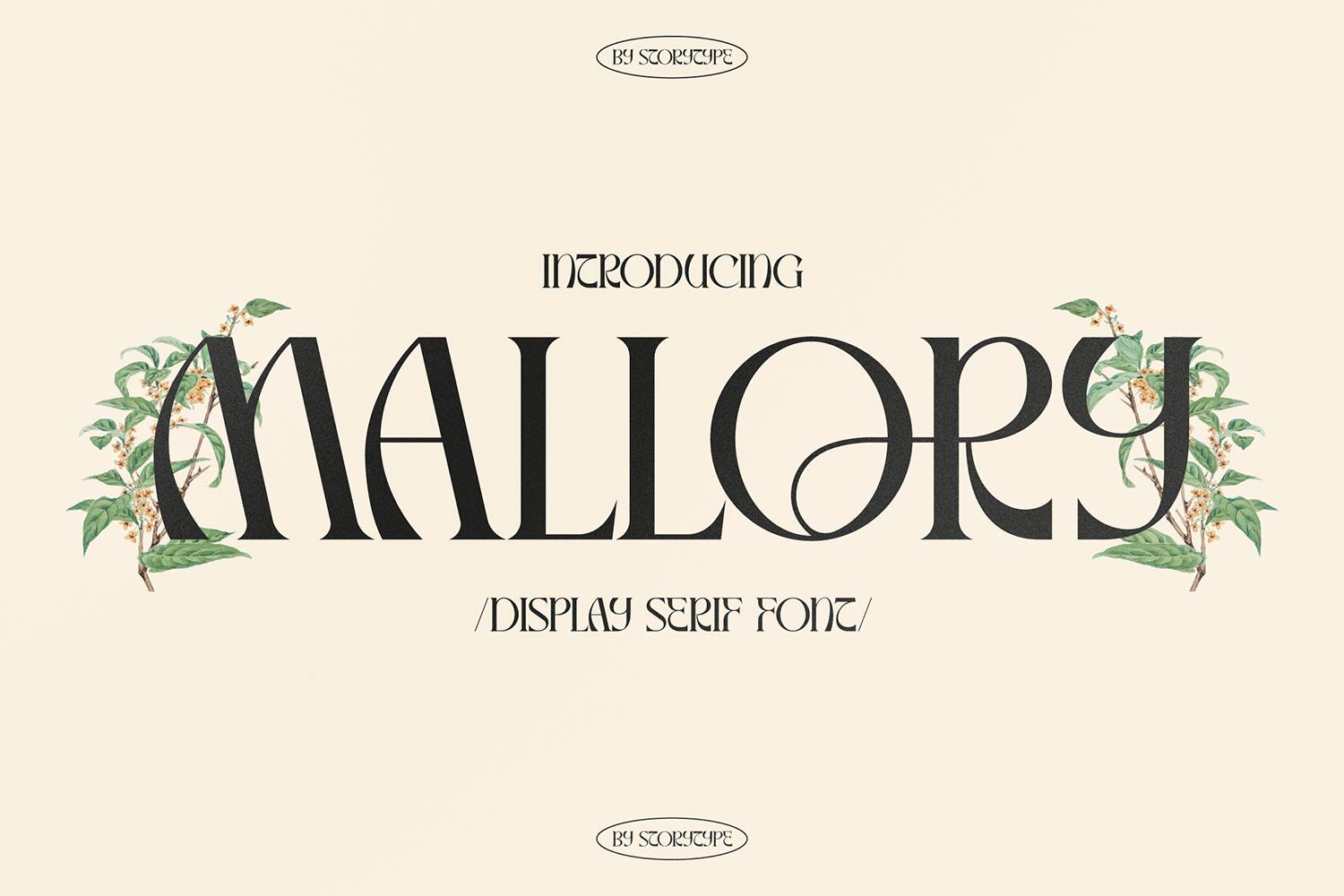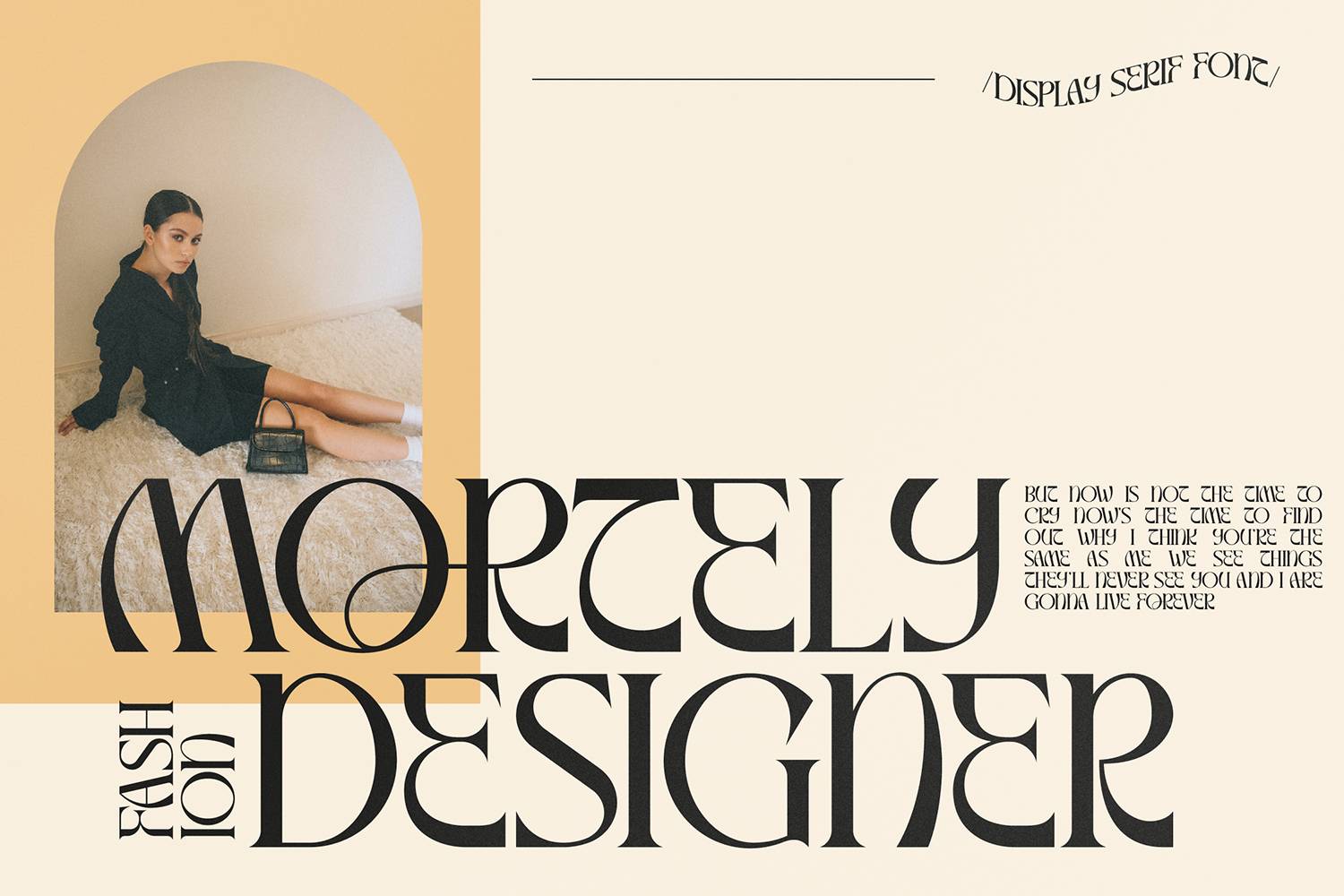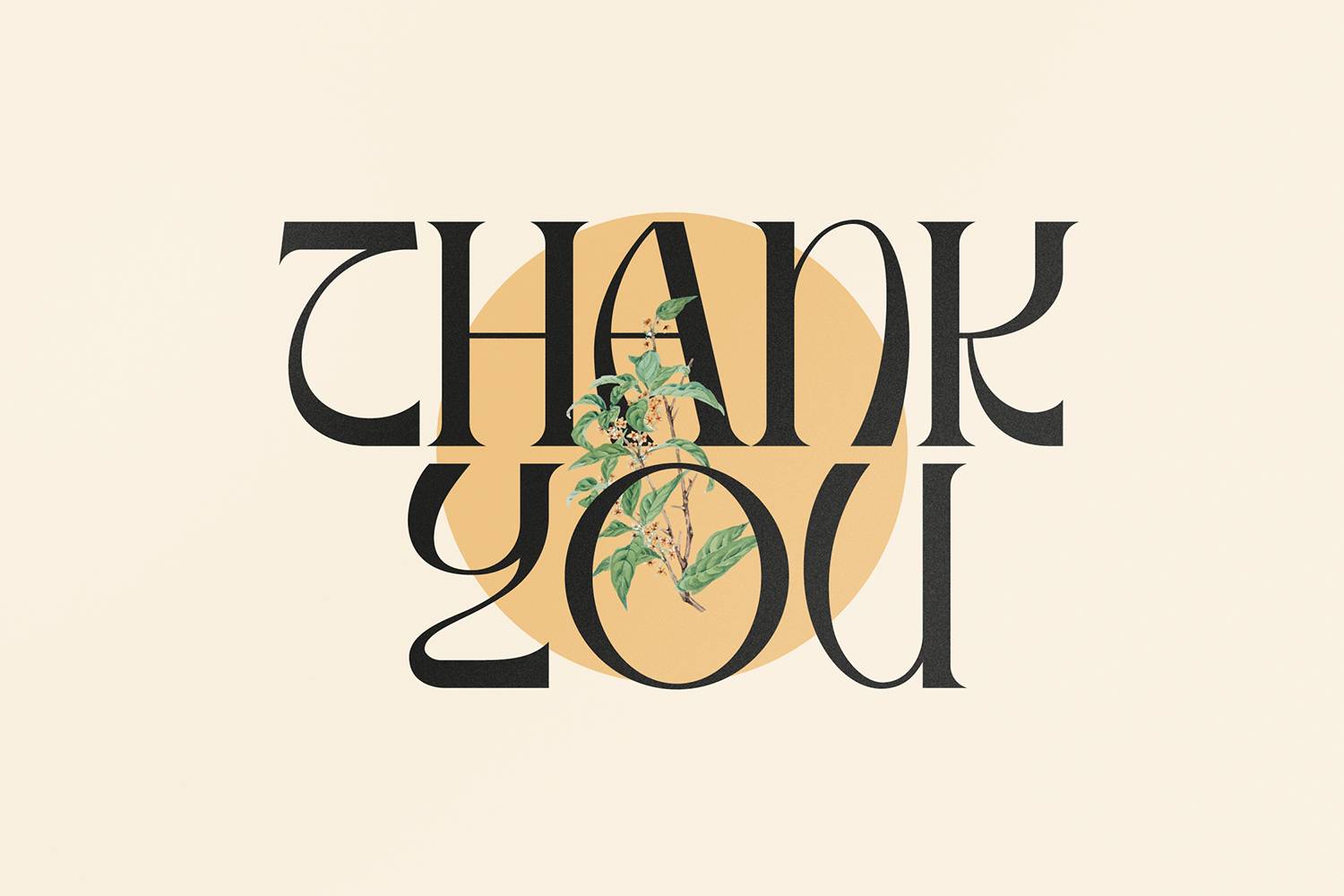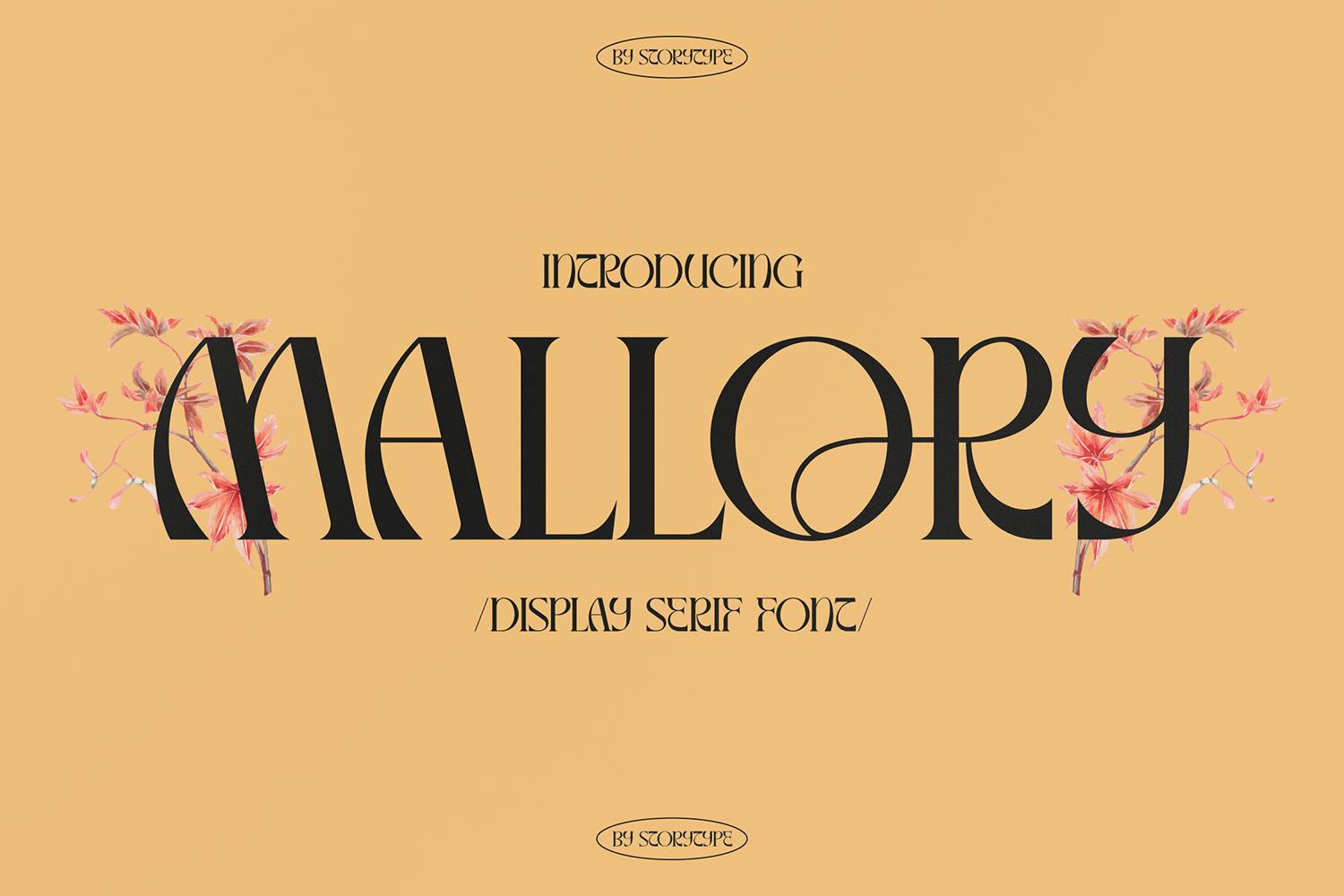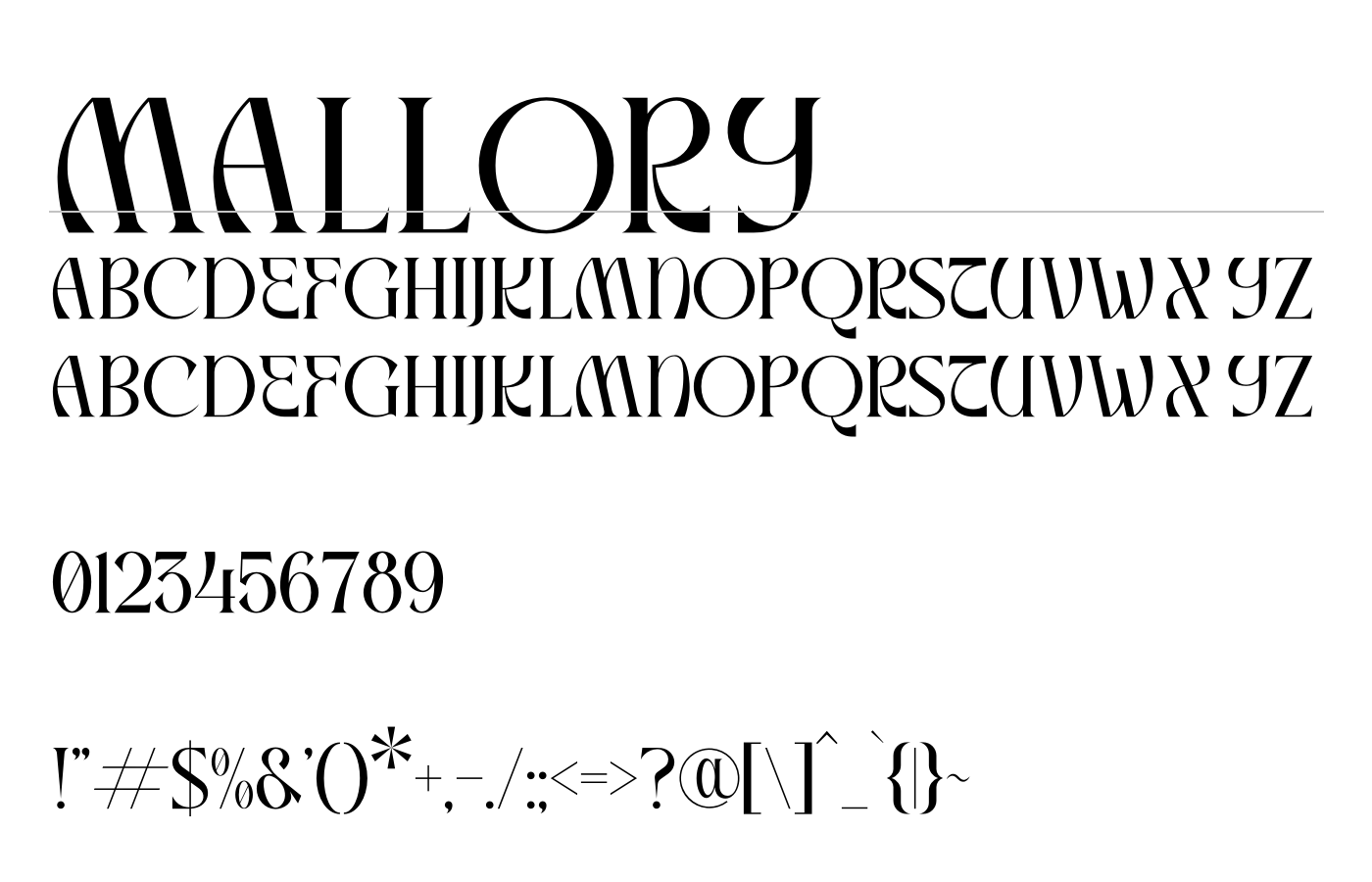
Mallory is a stylish serif font with a high contrast between thick and thin strokes, featuring elegant, elongated letterforms that blend classic sophistication with a modern Art Deco flair. Its unique, sharply defined serifs and creative shapes give it a luxurious and refined personality, making it ideal for upscale branding, fashion headlines, and editorial designs that demand a touch of glamour. This font stands out best in large sizes where its artistic details can be fully appreciated.
Mallory Font
About Mallory Font